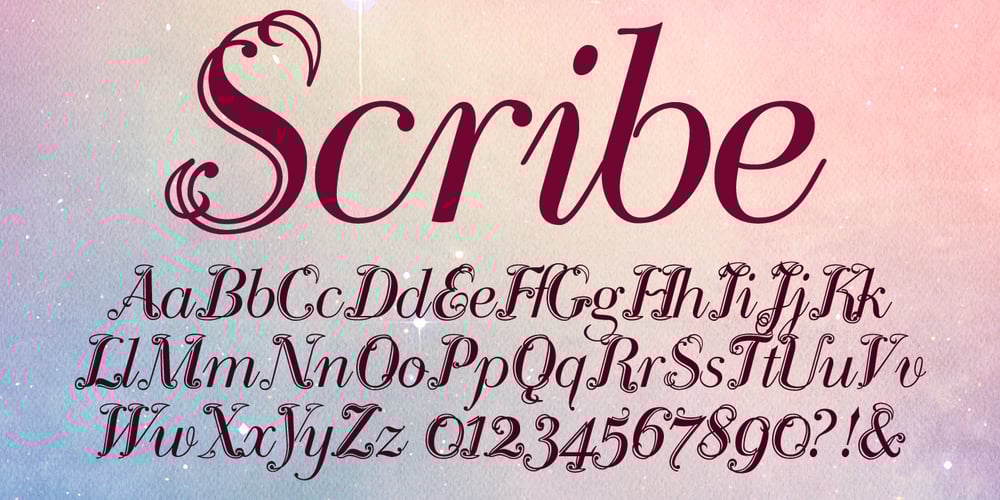
Scribe Font Family was designed by Gert Wiescher and published by Wiescher Design. Scribe contains 1 styles and family package options. Scribe is an elaborate typeface somewhere in between Bodoni and an English script. It has interwoven capitals and joining lowercase letters. I have tried to make something new that has this old, settled touch. I think I like it. Yours sincerely, Gert Wiescher